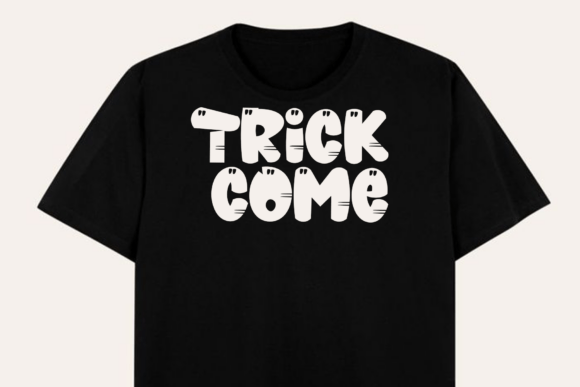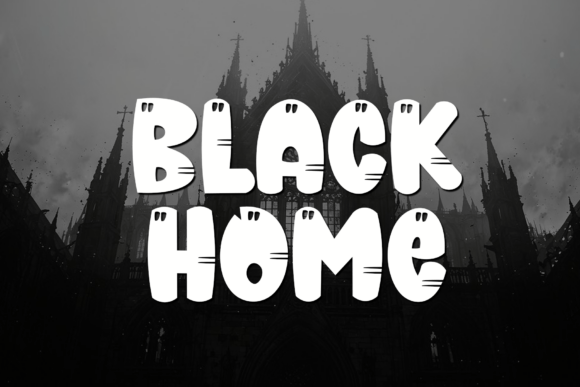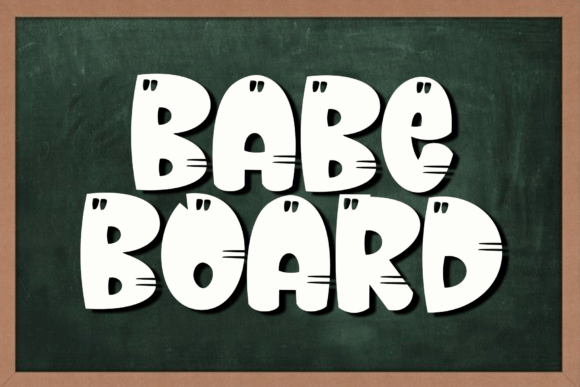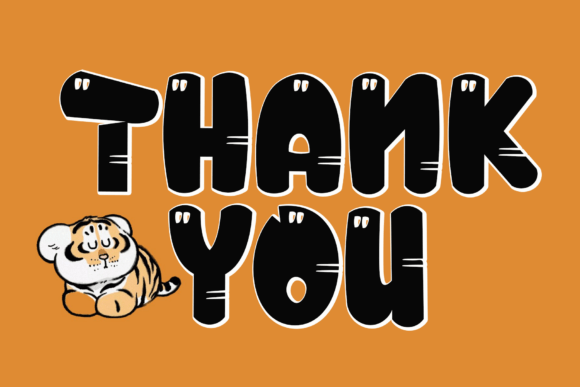
Introducing Comic Tiger Font: The Ultimate Display Font for Creative Designs
Are you a designer or crafter looking for a font that can add a touch of personality and whimsy to your creations? Look no further than Comic Tiger Font! This lovely display font is perfect for creating eye-catching logos, branding, and quotes that are sure to grab attention.
What Makes Comic Tiger Font So Special?
Every letter in Comic Tiger Font has a unique and beautiful touch that will make your design come alive! The font’s playful and energetic vibe is perfect for designers and crafters who want to add a bit of fun and personality to their work. Whether you’re creating a logo, branding materials, or social media graphics, Comic Tiger Font is the perfect choice.
Key Features of Comic Tiger Font
- Unique and Beautiful Touch: Each letter in Comic Tiger Font has been carefully crafted to have a unique and beautiful touch that sets it apart from other fonts.
- Eye-Catching Logos and Branding: With Comic Tiger Font, you can create eye-catching logos and branding materials that are sure to grab attention.
- Perfect for Quotes and Social Media Graphics: The font’s playful and energetic vibe makes it perfect for creating quotes and social media graphics that are sure to engage your audience.
- Easy to Read and Understand: Despite its playful vibe, Comic Tiger Font is easy to read and understand, making it perfect for use in a variety of design applications.
Why Designers and Crafters Love Comic Tiger Font
Designers and crafters love Comic Tiger Font for its versatility and creativity. The font can be used in a variety of design applications, from logos and branding to quotes and social media graphics. Its playful and energetic vibe makes it perfect for designers and crafters who want to add a bit of personality to their work.
Tips for Using Comic Tiger Font in Your Designs
- Use it for Headings and Titles: Comic Tiger Font is perfect for use in headings and titles, where its playful and energetic vibe can really shine.
- Pair it with Other Fonts: Try pairing Comic Tiger Font with other fonts to create a unique and interesting design.
- Experiment with Colors and Textures: Don’t be afraid to experiment with different colors and textures when using Comic Tiger Font in your designs.
In conclusion, Comic Tiger Font is a versatile and creative display font that is perfect for designers and crafters who want to add a bit of personality to their work. With its unique and beautiful touch, eye-catching logos and branding, and perfect for quotes and social media graphics, Comic Tiger Font is the ultimate choice for creative designs.